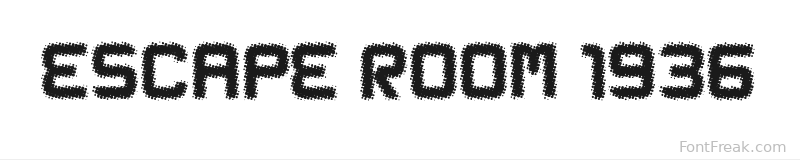
Escape Room 1936
Escape Room 1936 is a striking display typeface created by woodcutter Manero, categorized as a decorative font. This unique typeface features a bold stroke weight that captures attention with its distinctive, slightly rugged appearance. The design showcases a textured finish, reminiscent of vintage signage, which adds character and depth to each letter. The contrast in stroke weight is subtle yet effective, making it an engaging choice for various design applications. The spacing is thoughtfully crafted, ensuring legibility while maintaining an artistic flair, making it perfect for headlines and standout text.
The Escape Room 1936 font finds its best use in creative projects that require a touch of nostalgia and intrigue. It's ideal for escape room promotional materials, such as flyers and posters, where the theme can resonate with audiences. Additionally, this font works well in retro-themed restaurant menus, engaging movie titles, or even quirky branding for small businesses looking to make a memorable impression. Graphic designers and content creators will appreciate its versatility and the unique atmosphere it brings to their creations.
Targeting graphic designers, small business owners, and creatives, this font allows for a broad range of applications while speaking to those who enjoy a blend of modern and vintage styles. The Escape Room 1936 font free download presents an opportunity for designers to explore new creative avenues without the constraints of cost.
What sets the Escape Room 1936 font apart is its ability to evoke a sense of adventure and nostalgia, making it a captivating choice for projects that aim to transport viewers to another time and place. Its distinctive character ensures that any design incorporating this font will leave a lasting impression.